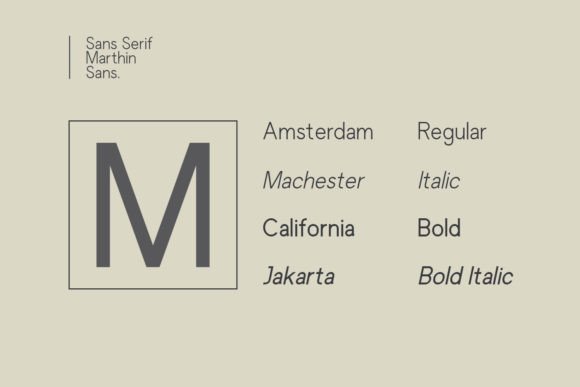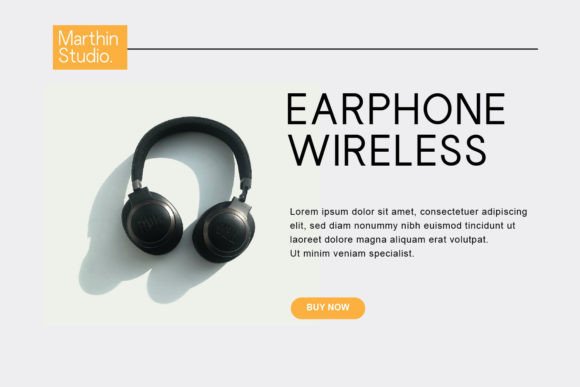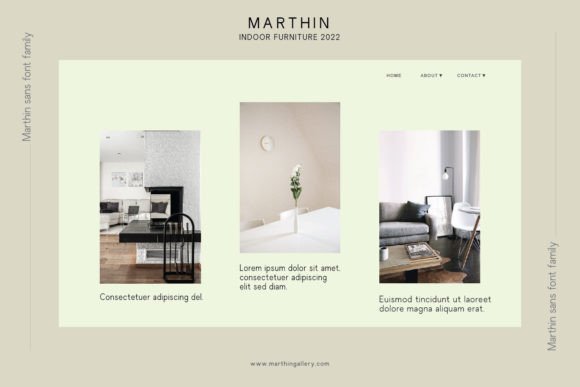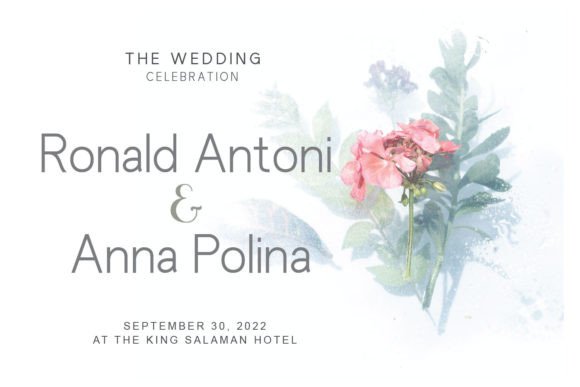
Introduction to Marthin Sans Font
Have you ever stared at a blank canvas, waiting for inspiration to strike? For designers, this moment is all too familiar. But what if you had the perfect tool to elevate your creative project and bring your vision to life? Enter the Marthin Sans Font, a classy and elegant sans serif font that’s about to become your new design BFF.
Whether you’re working on a high-quality brochure, a free download guide, or a website with a transparent background, the Marthin Sans Font is the perfect design resource to take your project to the next level. Its versatility and sophistication make it an invaluable asset for any designer looking to add a touch of class to their work.
Key Features of Marthin Sans Font
- High-quality, clean sans-serif design perfect for creative projects and design resources.
- Comes with a transparent background, allowing for easy customization and versatility in design applications.
- Features a large character set, including uppercase and lowercase letters, numbers, and punctuation marks, making it suitable for a wide range of applications.
- Designed to be highly legible and readable, making it an ideal choice for body text and headings in creative projects.
Honest Review: Marthin Sans Font
I recently had the chance to work with the Marthin Sans Font, and I must say it’s been a game-changer for my design projects. This high-quality font is perfect for any creative project that requires a clean and modern look.
- ✨ High-quality design: The Marthin Sans Font is designed with precision and care, making it perfect for professional design projects.
- ✨ Transparent background: The font’s transparent background allows for seamless integration with any design element, making it a valuable resource for designers.
One of the things I love about the Marthin Sans Font is its versatility. It’s perfect for use in logos, headings, and body text, making it a great addition to any design project.
However, there are a few limitations to consider: ⚠️ The font may not be suitable for very large or very small text sizes, and it may not be compatible with older versions of some software. Additionally, the font’s transparency may not work well with very dark or very light backgrounds.
Overall, I’m thoroughly impressed with the Marthin Sans Font. Its high-quality design, transparent background, and free download make it an excellent resource for designers. I highly recommend it for any creative project that requires a clean and modern look.
The Marthin Sans Font is a versatile and high-quality design resource perfect for any creative project. With its clean and modern aesthetic, it’s ideal for a wide range of applications.
For optimal results, pair the Marthin Sans Font with a high-quality image or background. Experiment with different font sizes and styles to create a visually appealing design.
The Marthin Sans Font is suitable for a wide range of applications, including:
- Website headers and footers